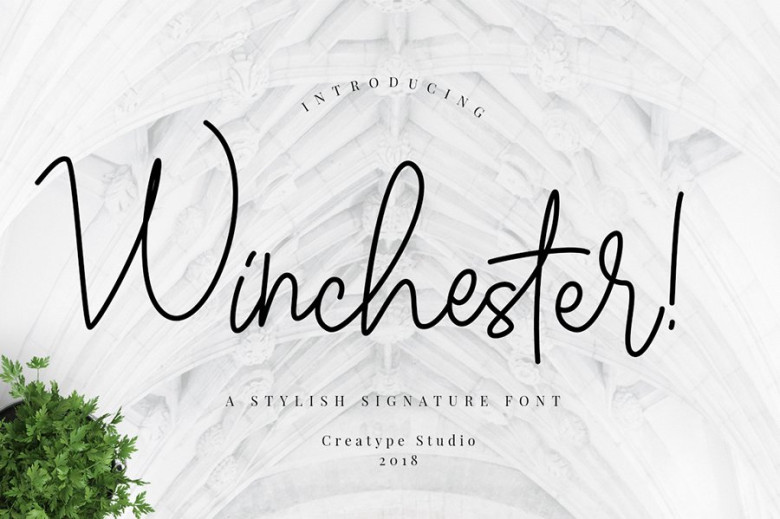
Winchester Signature Font
Introducing Winchester. It is was designed and shares by Creatype Studio Co.Winchester script font which stylish natural handwritten font with beautiful curve in every single corner. This font is so fashionable & elegant and perfect for photography, branding, signature and logo .